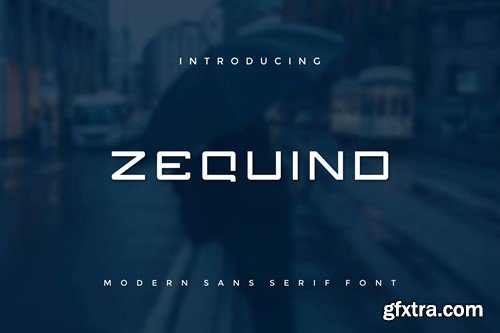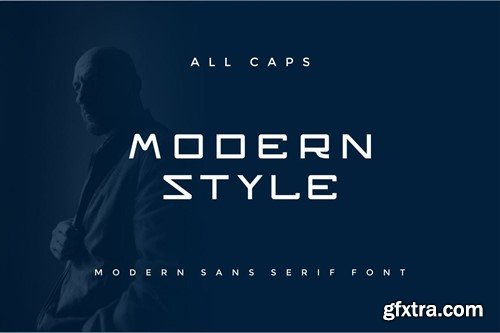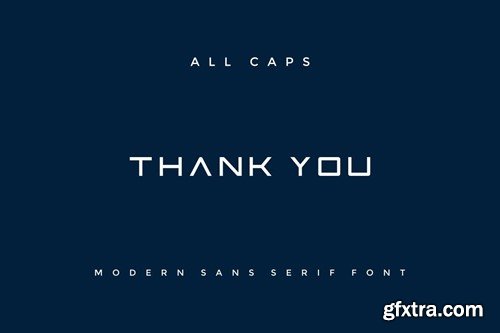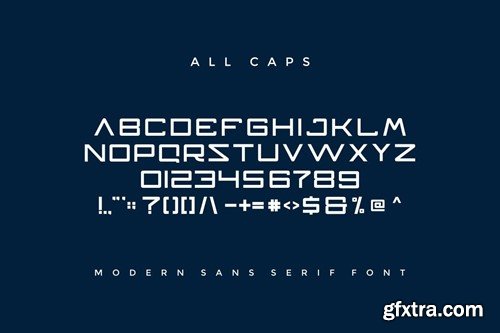
Zequind - Modern Sans Serif Font
Introducing our new product Zequind - Modern Font Zequind is a bold, modern display font with playful flair, ideal for attention-grabbing headlines, logos, and diverse design projects. Versatile and readable in both digital and print, Zequind adds a dynamic touch to your message. availlable